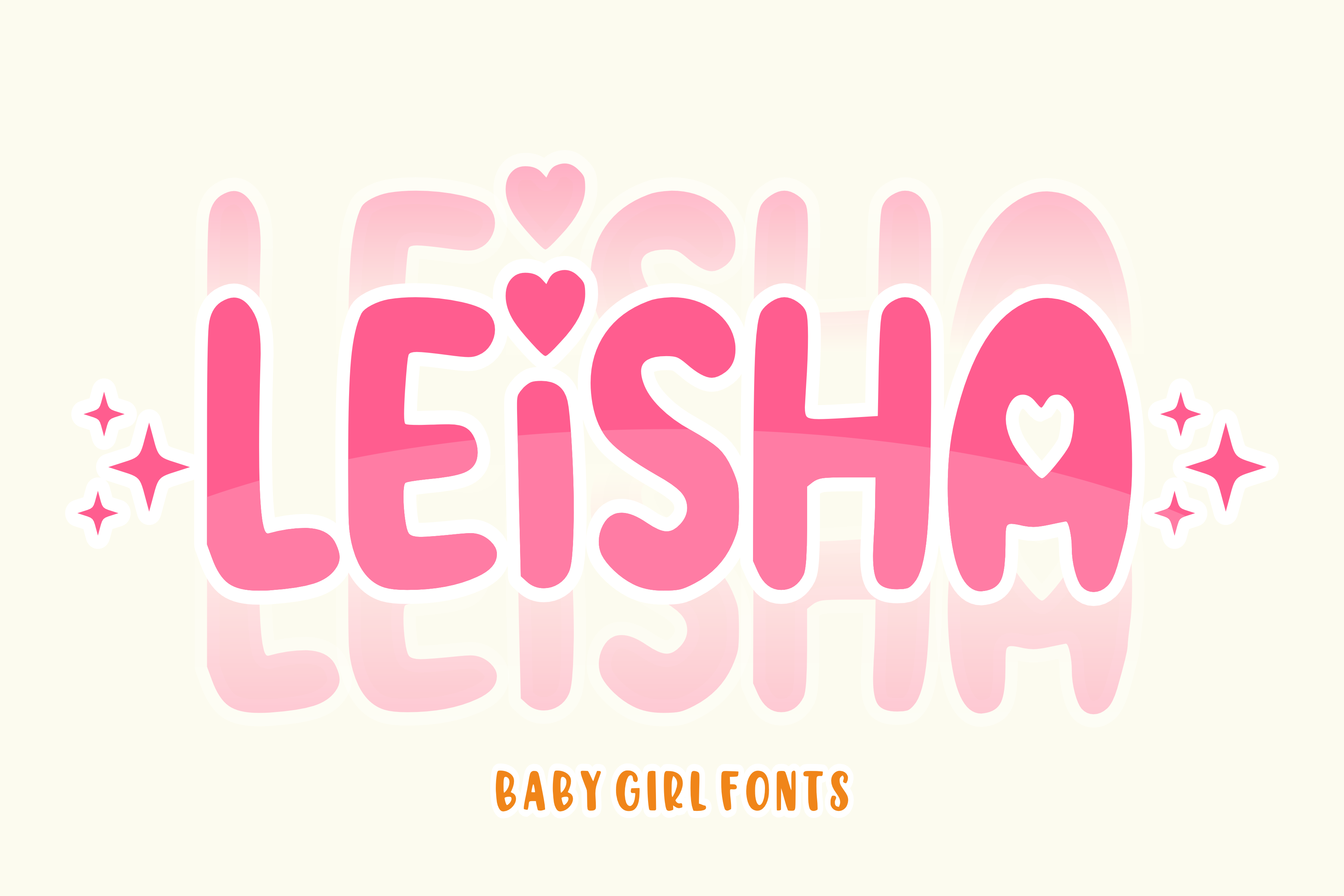
Leisha - Baby Font Types
Graceful yet giddy, the Leisha font is a captivating symphony of style and playfulness designed to invigorate your creative designs. Bursting with life and energy, Leisha sparks joy and captures the eye, perfect for cute-themed projects. Whether you’re adding a touch of whimsy to t-shirts, incorporating magic into crafts or sprinkling charm on stickers, Leisha is the enchanting companion you need. It effortlessly adorns mugs, animates sublimation techniques, and colors quotes with vivacity. The Leisha font is not limited to just tangible creations, it also illuminates digital spaces such as websites and banners, compelling anyone who encounters it. Endow your posters with the vibrant spirit of Leisha and watch your designs come alive with unquestionable elegance and unmatched charm.